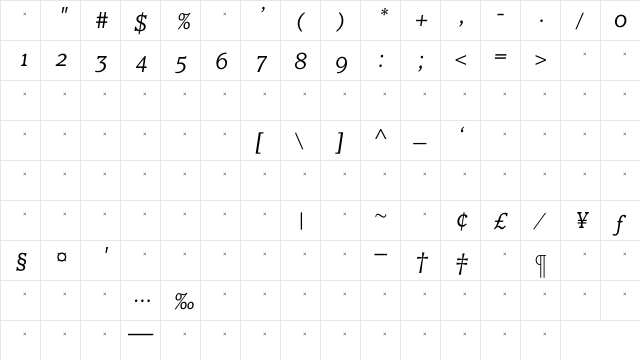
ClaremontLtItalOSTab Regular
Design Context for ClaremontLtItalOSTab Typeface
ClaremontLtItalOSTab offers clean, dependable letterforms without strong stylistic allegiance, making it a practical choice for designers who need flexibility.